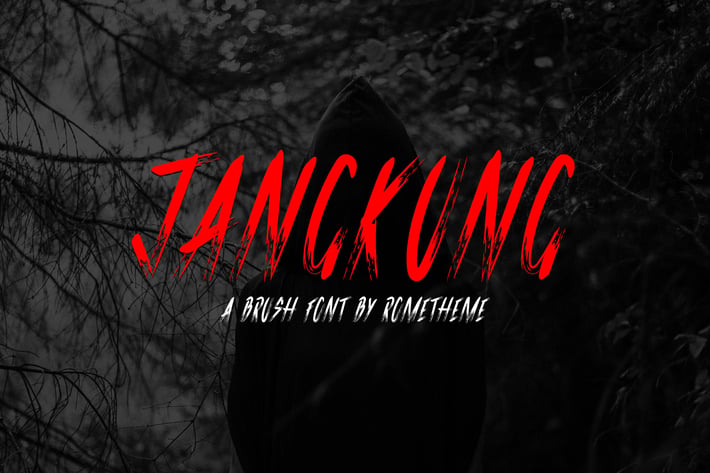
Jangkung - Brush Font
Jangkung is a scary brush font, this font looks horror, halloween, catchy and easy to use.
Jangkung Font is the best choice for your professional design projects, including : logo, poster design, t-shirt, headline, flyer, cd cover album, quotes, business card, branding, magazines, social media, advertisements, product designs, or something that need horror or scary looks.